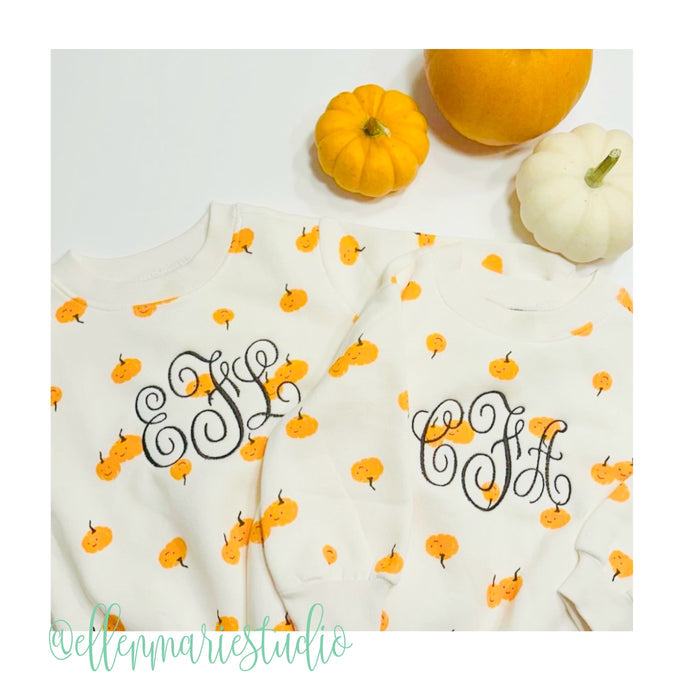
Allison Script 4x4 Satin Stitch Embroidery Font for Monograms
Unlock your creativity with the Allison Script 4x4 Satin Stitch Embroidery Font. This elegant script font package features a stunning single-color satin stitch design, perfect for creating personalized three-letter monograms. With 52 letters available in various sizes—1", 1.5", 2", 2.5", 3", and 3.5"—you'll enjoy the versatility needed for all your embroidery projects.